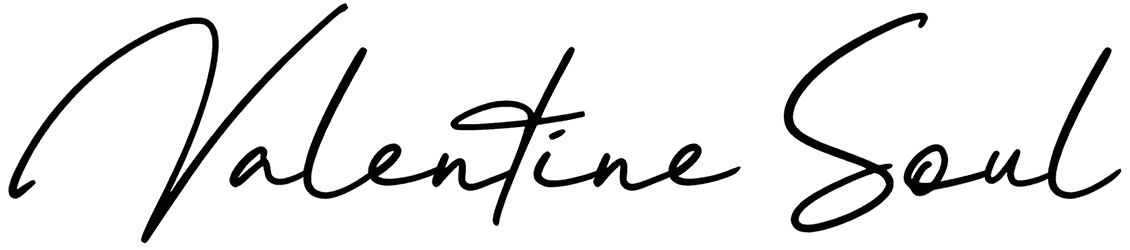
Valentine Soul Font
If you’re gonna talk to your loved ones through words, you better make sure you’re choosing an autograph font with enough emotional capacity for this task. After all, it’s supposed to convey your deepest feelings, so you can’t take any chances here.
Valentine Soul is one of those things that comes in handy in these scenarios. Not only does it chime in perfectly with anything romantic, but its sexy style also fits your luxurious artwork for branding accessories, clocks, fashion products, etc.